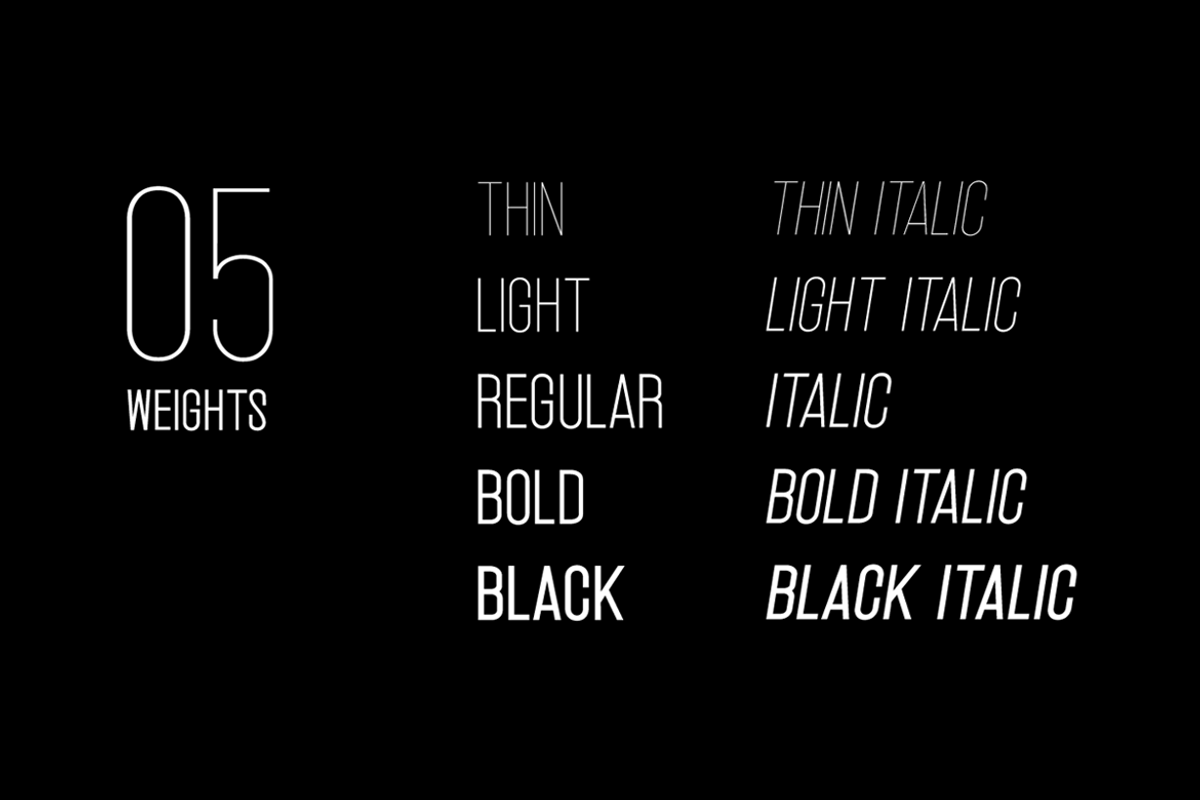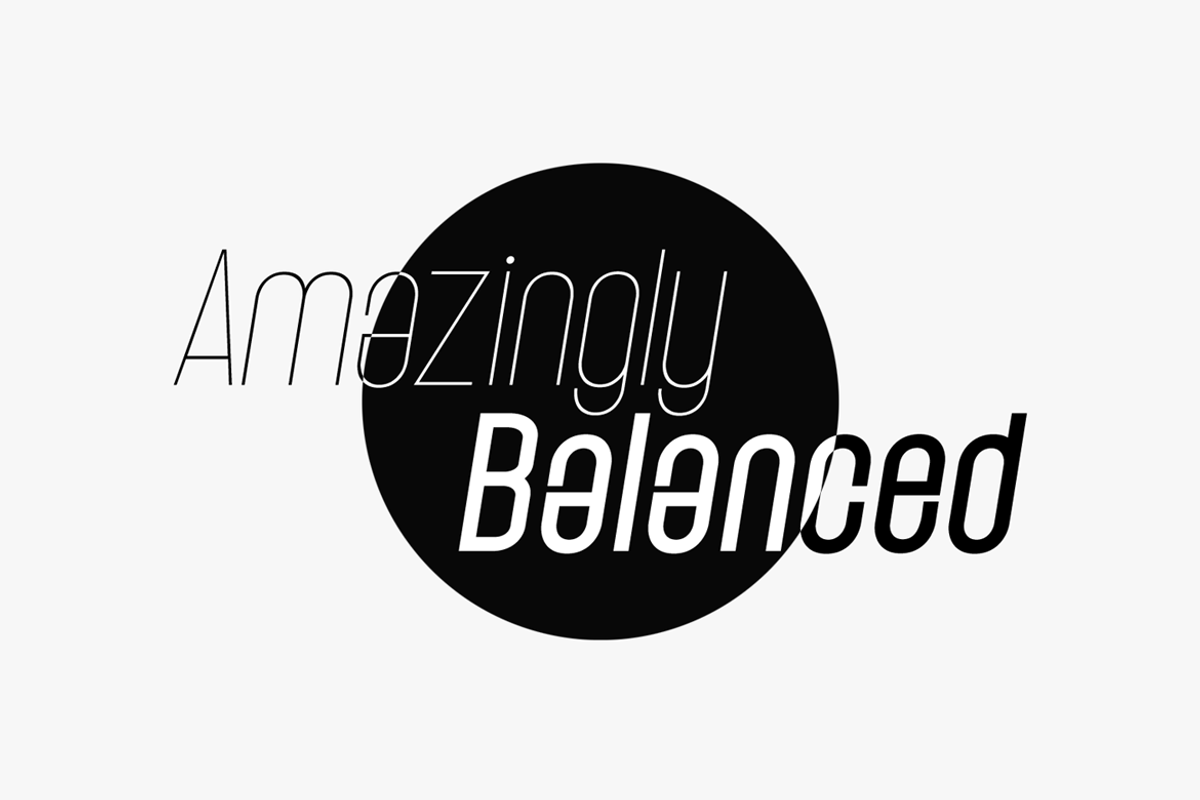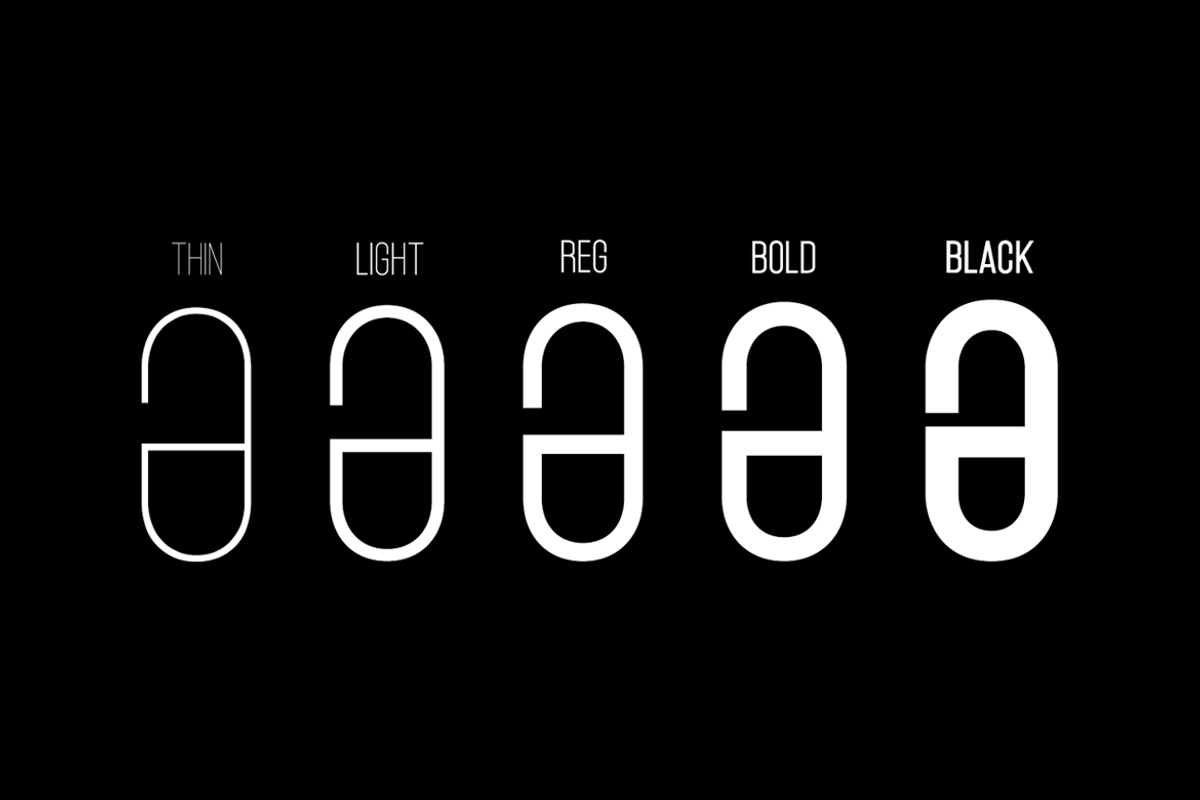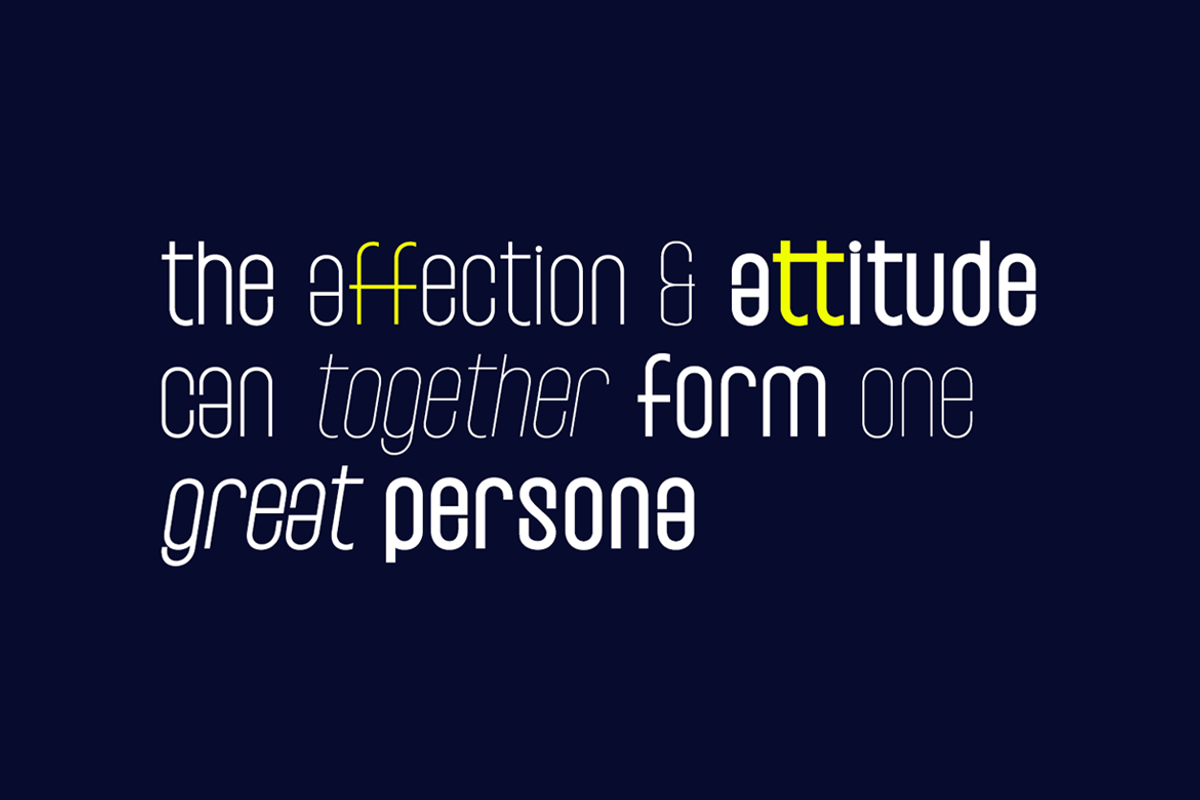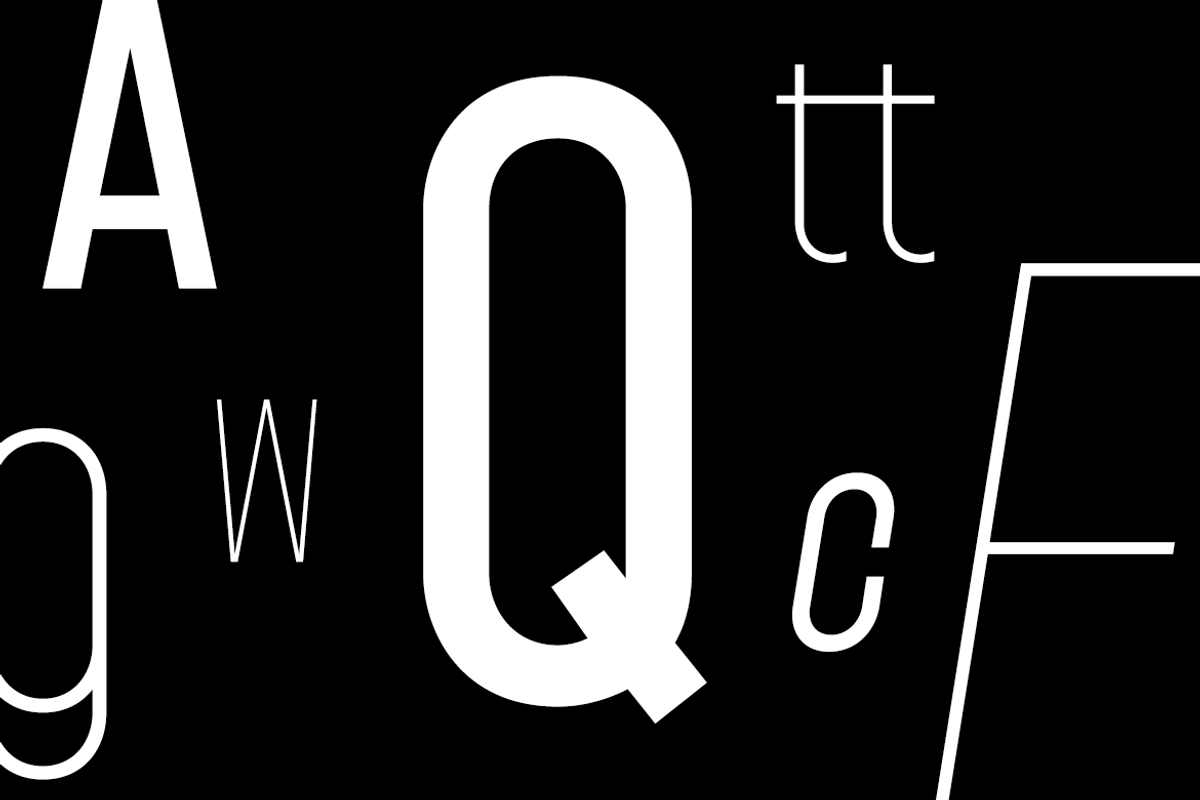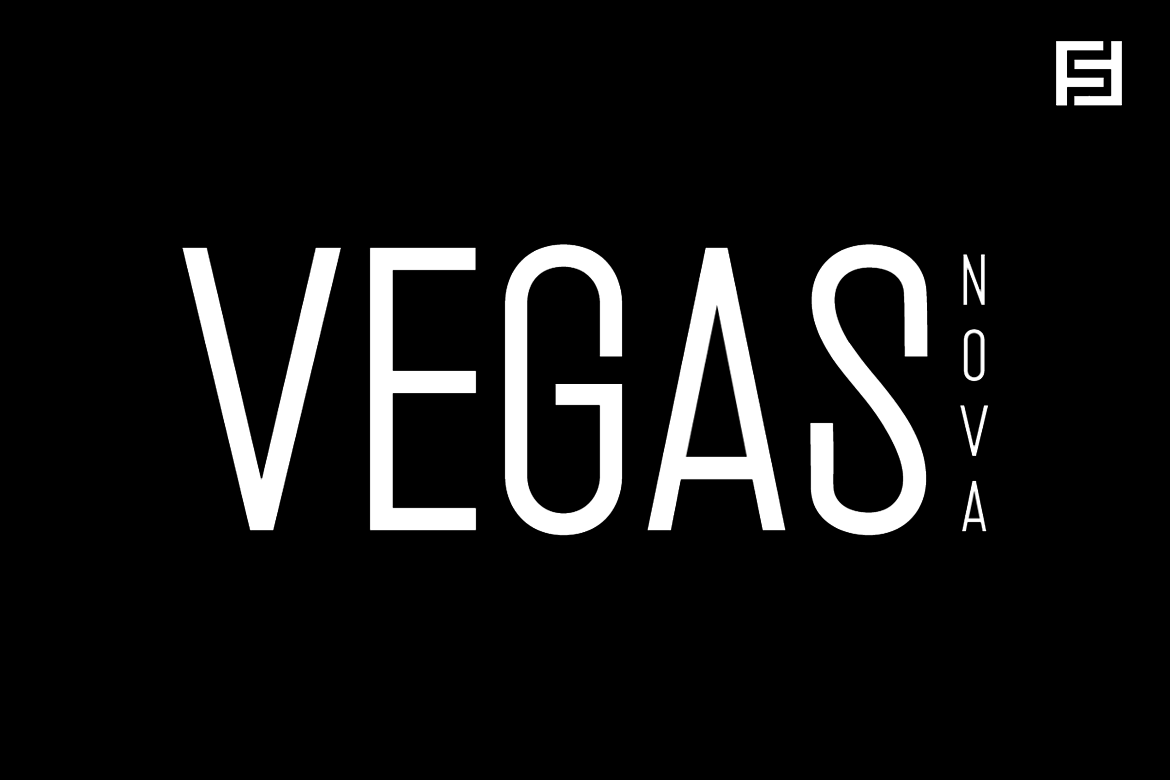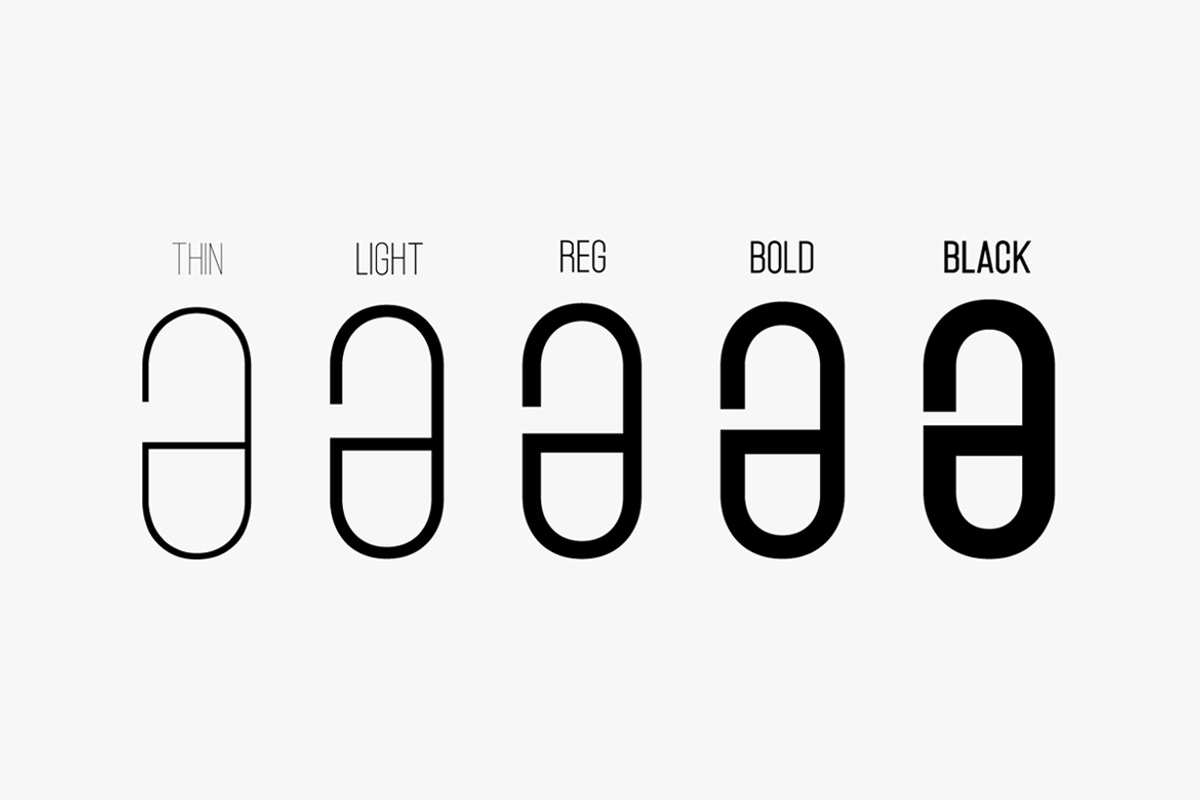
Vegas Nova - Unique Modern Typeface
Vegas Nova is a unique & modern Sans-Serif typeface specially designed for headlines, big text, branding, logotypes & display usage. The typeface could be perfect choice for logo / logotype design, branding, marketing graphics, banners, posters, signage, corporate identities as well as for editorial design that can bring freshness and professionalism. Please see the examples shown above to get an idea about the capability of this typeface.
Handcrafted and designed with powerful OpenType features in mind, each weight includes extended language support including Western European & Central European sets.
Vegas Nova comes with 5 weights (Thin, Light, Regular, Bold and Black) and Italic versions of each weights. The pack contains Desktop Fonts (OTF, TTF) as well as Web Fonts (EOT, SVG, WOFF, WOFF2) as options.